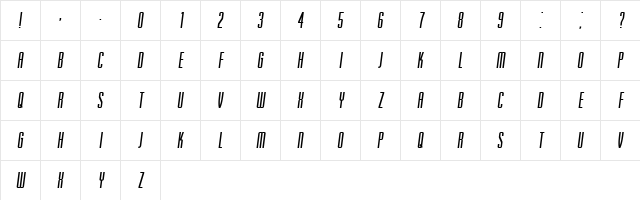
Passionate Relationship Italic
Design Context for Passionate Relationship
Passionate Relationship is a composed and adaptable typeface that performs quietly and consistently across a wide range of design contexts. The slanted form adds forward momentum and visual energy.
Pro Tip: Use Passionate Relationship for emphasis, pull quotes, and subheadings where its slanted energy can add rhythm to the layout.